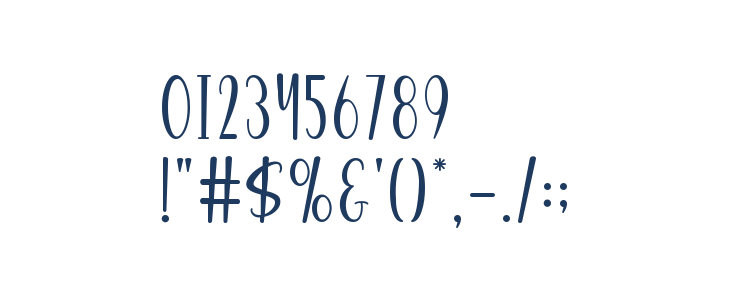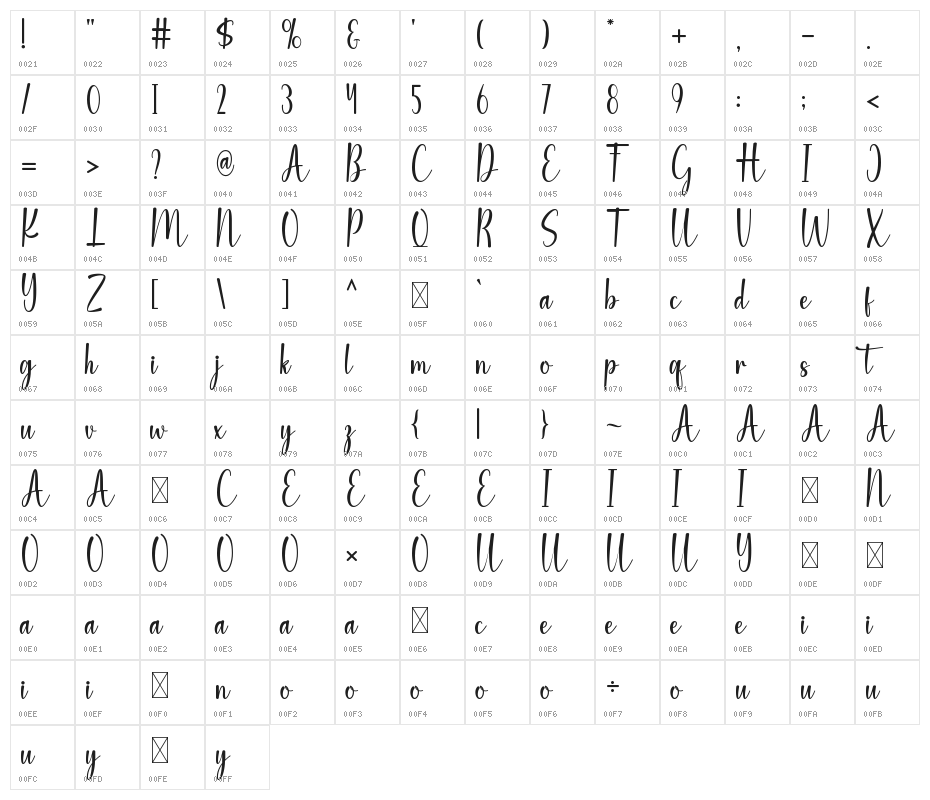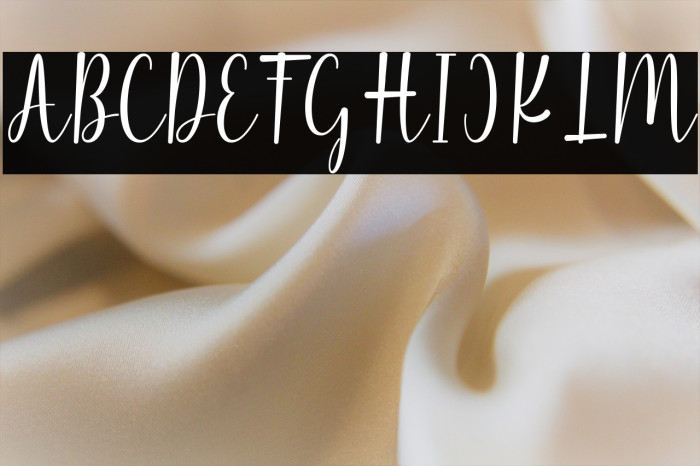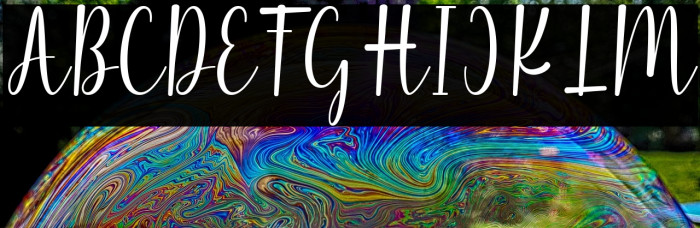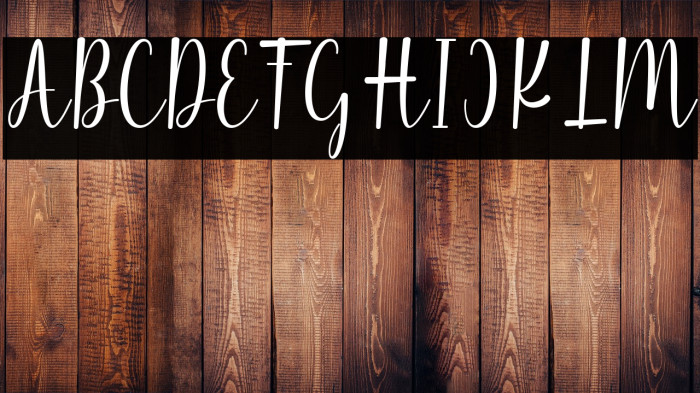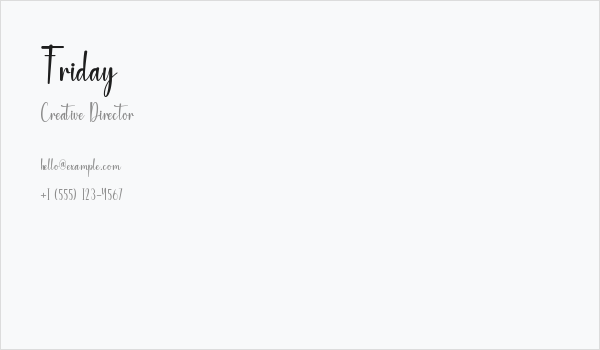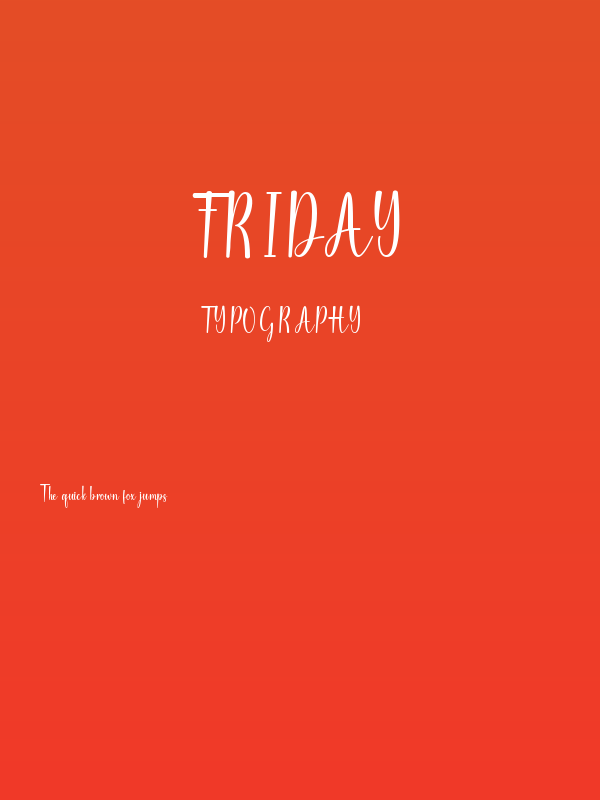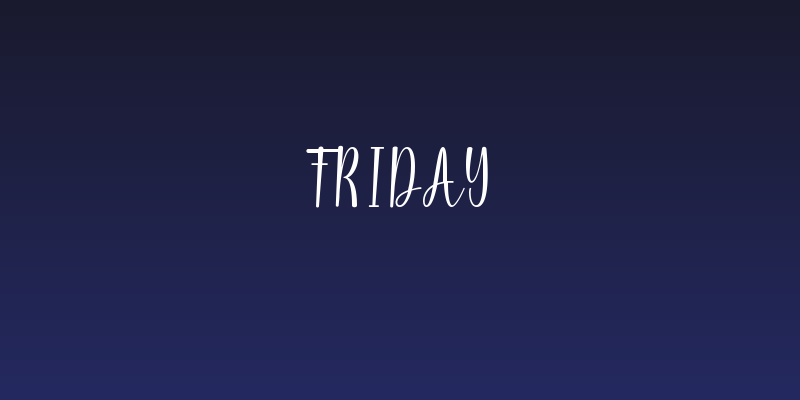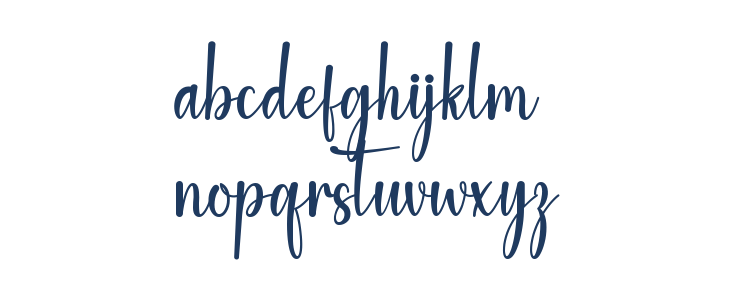
Friday Font
Friday Description
This font features a playful and whimsical script style, characterized by its flowing, handwritten appearance. The letters have a casual, yet elegant feel, with smooth curves and varying stroke widths that add a dynamic touch. The uppercase letters are tall and slightly narrow, while the lowercase letters maintain a consistent baseline with occasional flourishes. The numerals are distinct and easy to read, complementing the overall style. Special characters are creatively integrated, maintaining the font's lively personality. This font is versatile, suitable for projects that require a personal and approachable touch.